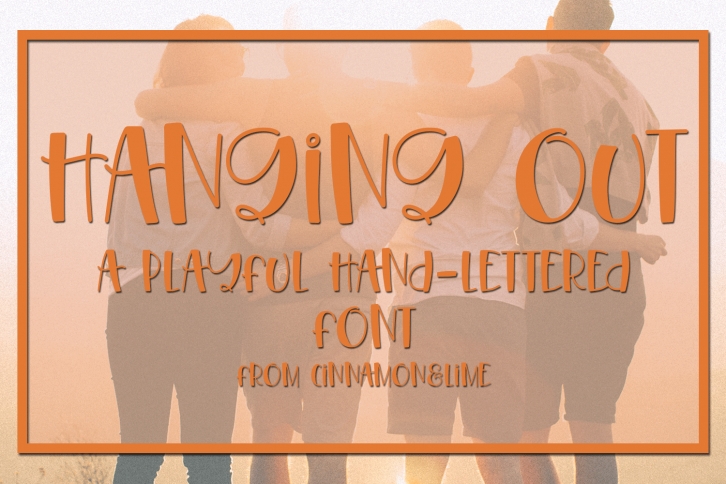
Hanging Out is a great font that was designed by CinnamonAndLime. Imagine the amount of combinations you can create using this font! The archive is 16.52 MB and it was released on May 10, 2019. Hanging Out looks beautiful on wedding invitations, greeting cards, logos, posters, labels, t-shirt designs, logos, business cards and is perfect for use in ink or watercolor works, fashion, magazines, packaging and food menus, children's books and more!